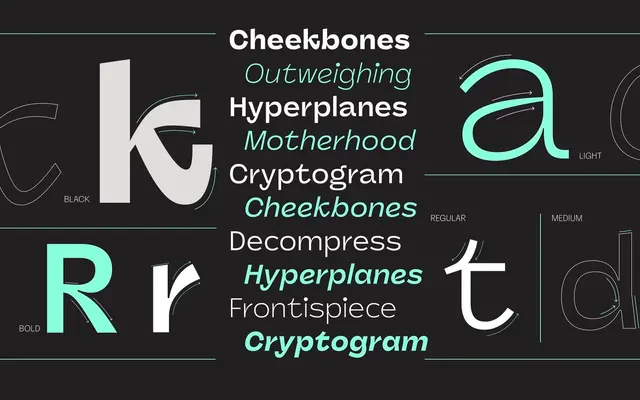
Panel Sans
A grotesque sans family from PS Type Lab spanning 40 fonts across sans, mono and italic variants, with a matching monospaced sub-family.
Panel Sans is a grotesque sans offered in a broad 40-font family that covers regular and display weights from Light to Black, with italic cuts throughout. A dedicated monospaced variant, Panel Sans Mono, extends the family for code and tabular contexts. The family is available via Adobe Fonts as well as direct purchase, and includes at least one stylistic set for alternate letterforms.
Marketed as a sans with accompanying mono and serif variants; the primary family is a grotesque sans with regular through black weights and italic cuts.